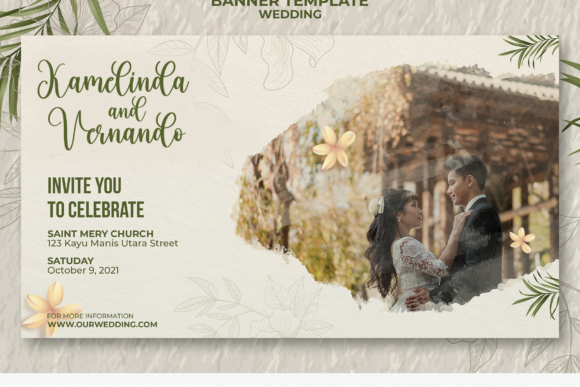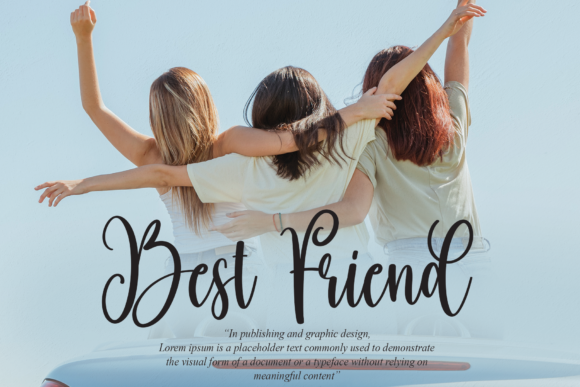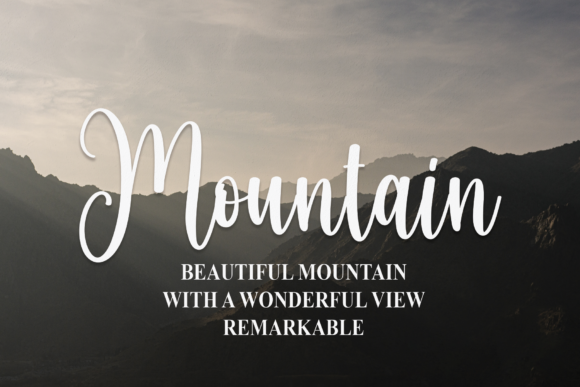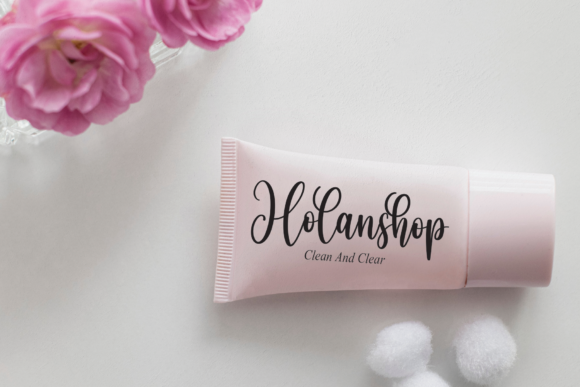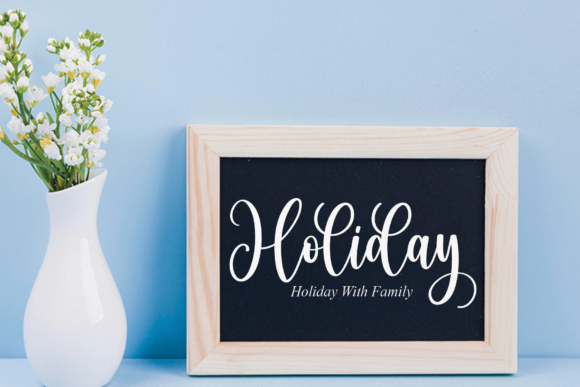
Rainbow Font
About Rainbow Font
Rainbow is a sophisticated and romantic handwritten font suitable for your most creative ideas! It is a great choice for wall displays, wedding invitations, social media post logos, advertisements, product packaging, product designs, labels, photography, watermarks, invitations, stationery, and many other projects!